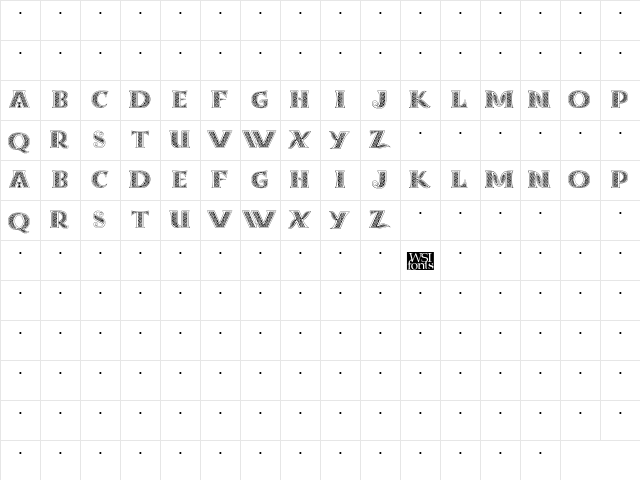
DropCaps Regular Free Font
DropCaps Regular
DropCaps Family
Design Context for DropCaps
DropCaps is a composed and adaptable typeface that performs quietly and consistently across a wide range of design contexts.